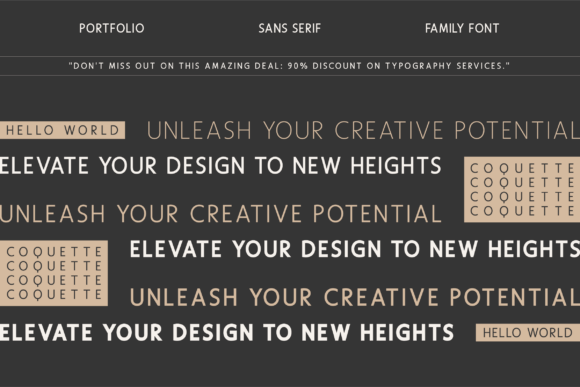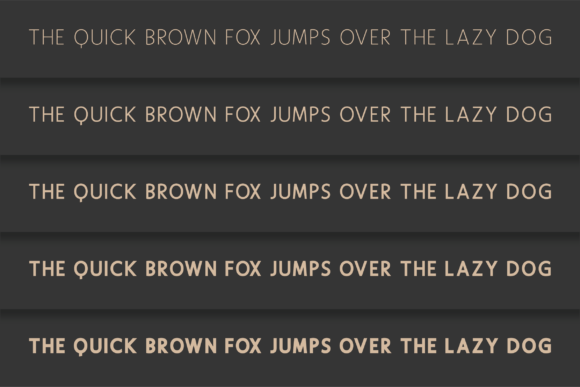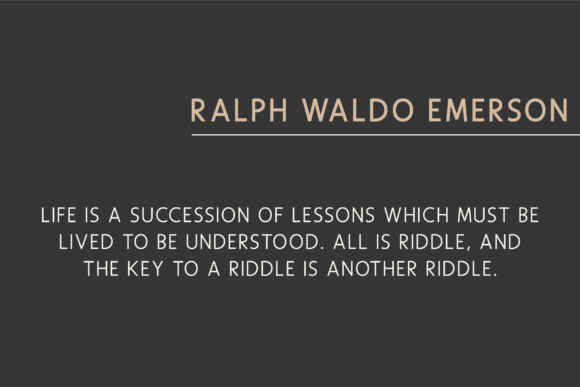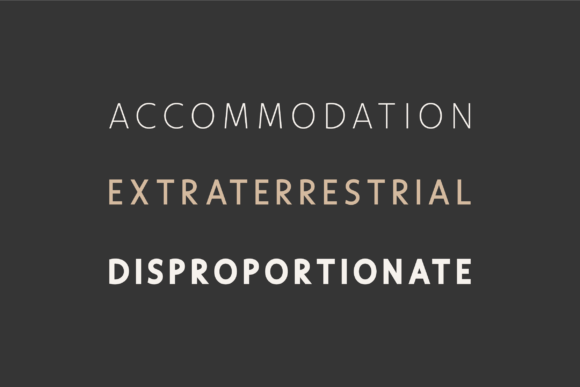
Introducing Coquette Font Family — A Masterpiece of Elegance and Minimalism
In the world of typography, few font families manage to strike the perfect balance between elegance and minimalism. However, Coquette Font has successfully achieved this harmony, making it a game-changer for designers and crafters alike. This meticulously crafted sans-serif font family is designed to redefine modern design, offering a wide range of creative possibilities.
Unparalleled Versatility with 5 Distinct Weights
One of the standout features of Coquette Font is its versatility. The font family consists of 5 distinct weights, allowing designers to adapt it to various projects, including magazines, logos, film posters, and more. Whether you’re working on a sleek and modern brand identity or a bold and eye-catching advertisement, Coquette Font has got you covered.
Precision-Designed for Sophistication and Simplicity
Coquette Font is designed with precision and an eye for detail, ensuring that every aspect of the font is meticulously crafted. The result is a font family that strikes the perfect balance between sophistication and simplicity. The clean lines, subtle curves, and carefully considered letterforms all contribute to a sense of timeless charm and contemporary luxury.
Elevate Your Designs with Timeless Charm and Contemporary Luxury
With Coquette Font, you can transform your designs and unlock a new level of creativity. The font’s elegant and minimalist aesthetic makes it perfect for a wide range of applications, from high-end branding and advertising to editorial design and digital media. Whether you’re looking to create a bold statement or a subtle impression, Coquette Font provides the perfect foundation for your creative vision.
Key Features of Coquette Font Family
- 5 distinct weights: Offering unparalleled versatility for a wide range of design projects.
- Sans-serif design: Providing a clean and modern aesthetic.
- Precision-crafted: Ensuring a high level of detail and sophistication.
- Timeless charm and contemporary luxury: Allowing your designs to exude a sense of elegance and refinement.
Why Choose Coquette Font?
Coquette Font is the perfect choice for designers and crafters looking for a font family that combines elegance and minimalism. Its versatility, precision design, and timeless aesthetic make it an ideal solution for a wide range of creative projects. Whether you’re working on a personal project or a client brief, Coquette Font provides the perfect foundation for your design.
With Coquette Font, you can take your designs to the next level. Say goodbye to bland and uninspiring typography, and hello to a world of creative possibilities. Unlock the full potential of your designs and discover a new level of elegance and sophistication.
In conclusion, Coquette Font is a masterpiece of elegance and minimalism, offering a wide range of creative possibilities for designers and crafters. Its precision design, versatility, and timeless aesthetic make it the perfect choice for a wide range of design projects. Whether you’re looking to create a bold statement or a subtle impression, Coquette Font provides the perfect foundation for your creative vision.